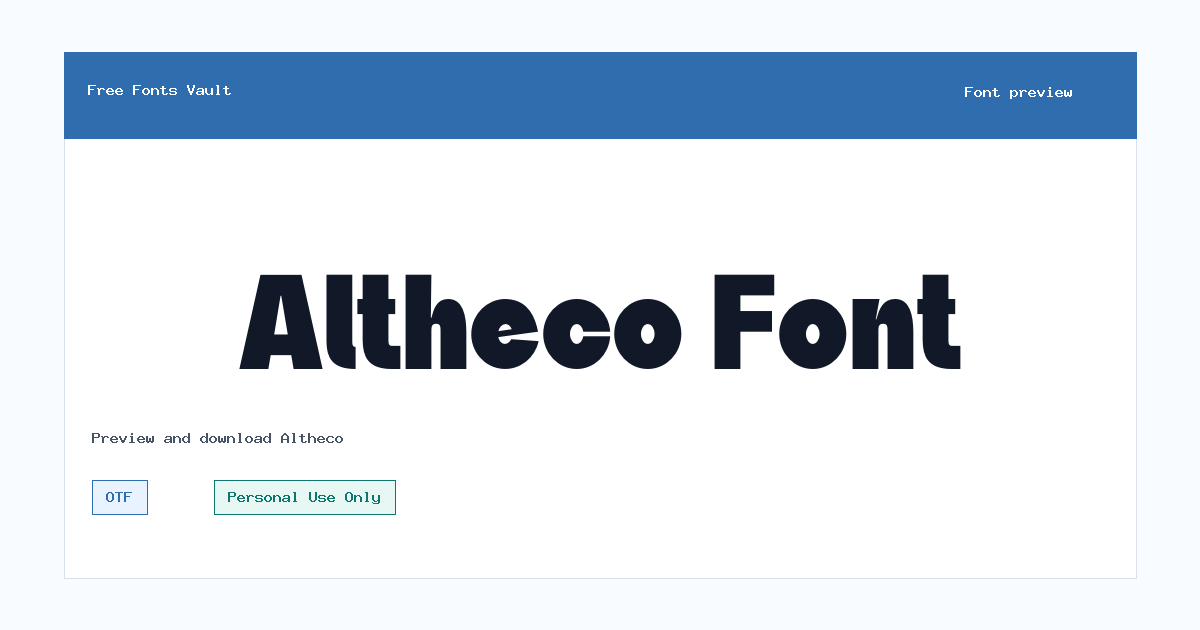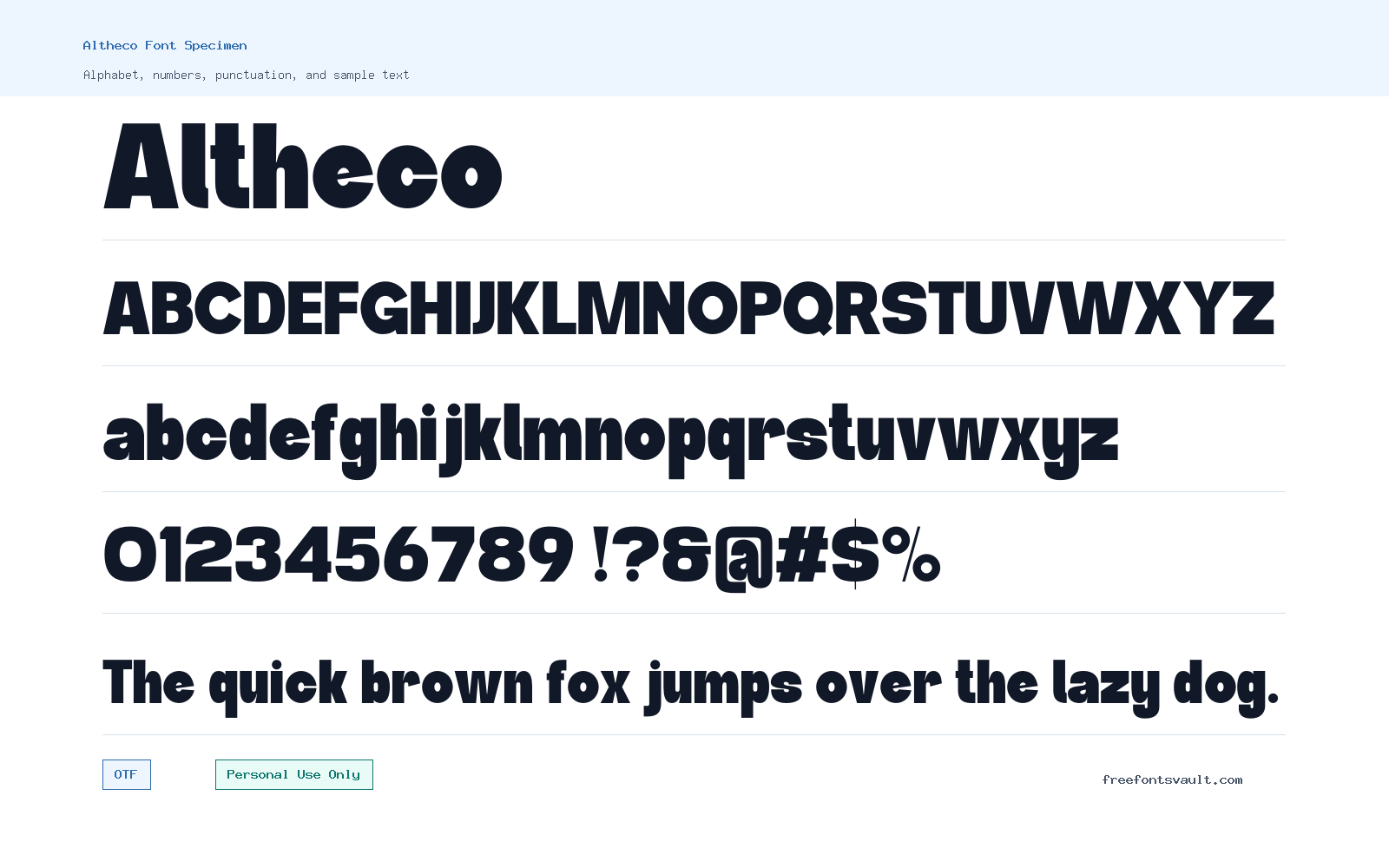
Altheco
Altheco Font
Altheco is a personal-use sans serif font from Funtype Co. It comes in a regular OTF style, making it easy to test in most design apps before using it in a personal project.
About Altheco
Altheco is best approached as a clean display-friendly sans serif rather than a large text workhorse. The available regular style gives you a straightforward starting point for titles, short labels, social posts, and simple visual layouts. Because there is one listed style at normal weight, it is a good idea to preview your exact words before downloading. Try uppercase and lowercase letters, numbers, punctuation, and the longest word you plan to use. That quick check will show whether the spacing, proportions, and overall tone fit your project.
Use Altheco where short text matters more than long reading comfort. It can work for personal graphics, name cards, quote images, headers, hobby posters, digital mockups, and small branding experiments for private use. For longer paragraphs, pair it with a calmer body font and let Altheco handle headings or accents. Since only the regular weight is listed, avoid layouts that depend on bold, italic, or a wide range of weights unless you plan to create contrast through size, color, or spacing instead.
• Sans serif style suited to short headings, labels, previews, and personal design tests.
• Personal posters, social graphics, quote cards, and hobby design mockups.
• Short headings, simple title treatments, name labels, and clean display text.
Does Altheco include bold or italic styles?
Only one regular style is listed. If you need bold, italic, or multiple weights, test whether size, spacing, and color give you enough contrast.
What is Altheco best used for?
It is most useful for short personal-use text such as headings, posters, social graphics, labels, and design mockups.